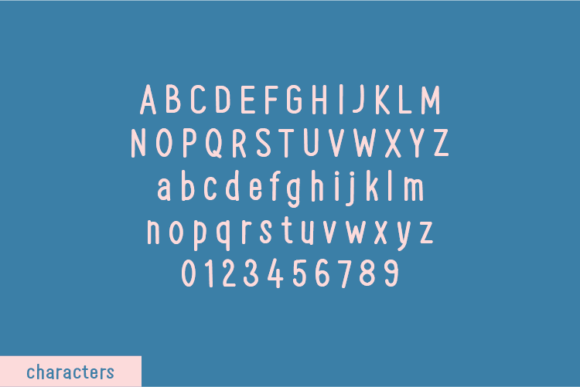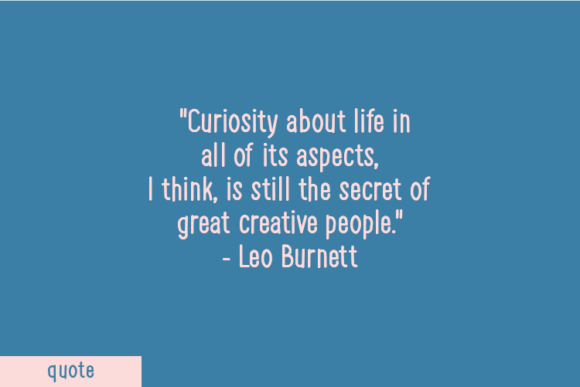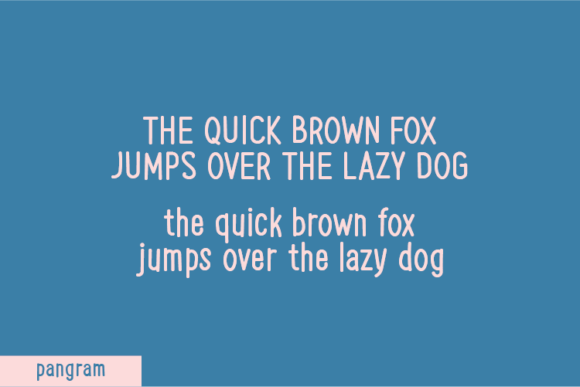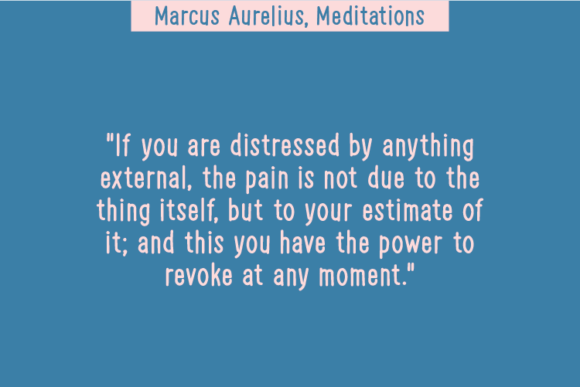
Introducing Decorated Font: A Unique and Creative Handwritten Style
Are you tired of using the same old fonts for your designs? Look no further! Decorated Font is a natural handwritten font that is sure to add a touch of personality to your projects. What makes Decorated Font truly unique is that it has been crafted without changing a single node in each character’s indentation, giving it a distinctive and interesting look.
The Characteristics of Decorated Font
Decorated Font is a handwritten font that boasts a natural and effortless look. The font’s unique characteristic is that it has not been altered in terms of node indentation, which means that every character has a distinctive and organic feel to it. This feature makes Decorated Font perfect for designs that require a personal touch, such as quotes, notes, and product designs.
Uses of Decorated Font
Decorated Font is a versatile font that can be used in a variety of design projects. Here are some ideas to get you started:
• Quotes and Inspirational Messages: Add a touch of elegance and sophistication to your quotes and inspirational messages with Decorated Font.
• Notes and Journaling: Use Decorated Font to add a personal touch to your notes and journal entries.
• T-Shirts and Apparel: Create unique and eye-catching designs for t-shirts and other apparel using Decorated Font.
• Product Design: Add a touch of personality to your product designs, such as packaging, labels, and branding materials.
Benefits of Using Decorated Font
There are several benefits to using Decorated Font in your designs:
• Unique and Eye-Catching: Decorated Font is sure to grab attention and add a touch of personality to your designs.
• Versatile: Decorated Font can be used in a variety of design projects, from quotes and notes to product designs and apparel.
• Easy to Read: Despite its unique and decorative style, Decorated Font is easy to read and understand.
Tips for Using Decorated Font
Here are some tips for using Decorated Font in your designs:
• Use it Sparingly: Decorated Font is best used sparingly, as it can be overwhelming if used excessively.
• Pair it with Other Fonts: Experiment with pairing Decorated Font with other fonts to create a unique and interesting look.
• Adjust the Size and Color: Adjust the size and color of Decorated Font to suit your design needs.
Font Name Decorated Font
Author Hanna Bie
Decorated Font is a unique and creative handwritten font that is perfect for designers and crafters looking to add a touch of personality to their projects. With its natural and effortless look, Decorated Font is sure to grab attention and add a touch of elegance to your designs. Whether you’re creating quotes, notes, t-shirts, or product designs, Decorated Font is a versatile font that is sure to inspire.
Get Creative with Decorated Font